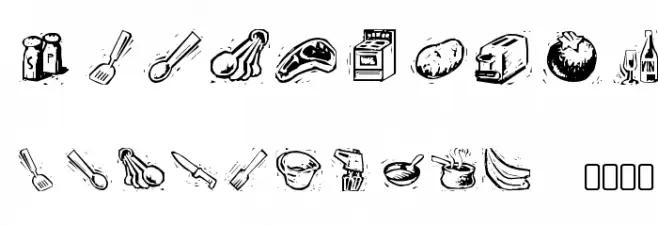
Counterscraps-Regular Font
Counterscraps-Regular Description
A playful, hand-drawn dingbat font featuring a variety of food, kitchen utensils, and cooking-related illustrations with sketchy, textured outlines and a casual, whimsical feel.
Hand-drawn food and kitchen icon dingbat font from Uncategorized fonts.
- Proposed Projects: Recipe books, restaurant menus, food blogs, cooking class flyers, children's educational materials.
- Overall Style: Decorative, Whimsical, Hand-drawn
- Use Case: Icons, Decorative elements, Themed graphics